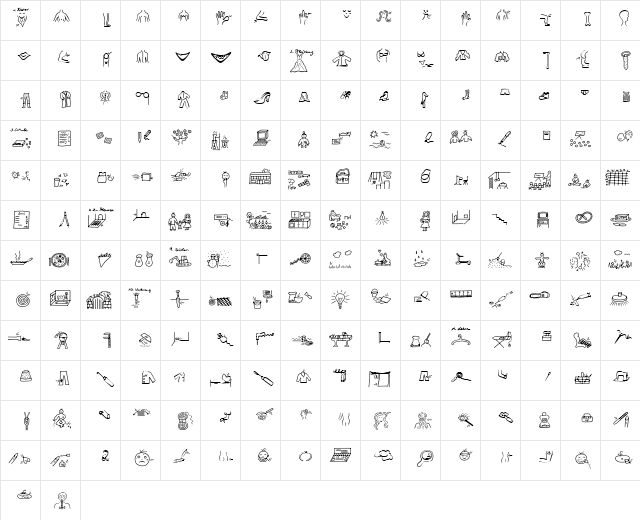
Symbolico 2 DB Normal
Design Context for Symbolico 2 DB Typeface
Symbolico 2 DB is a composed and adaptable typeface that performs quietly and consistently across a wide range of design contexts.